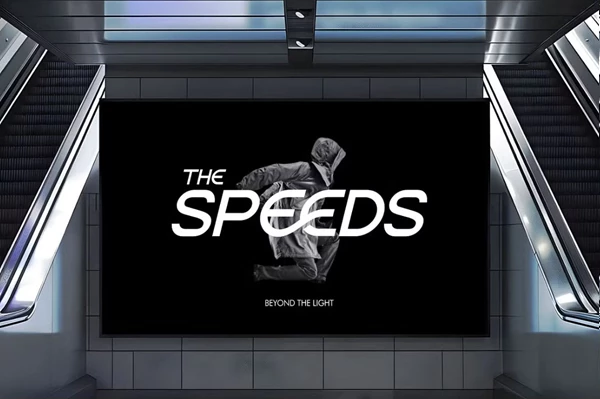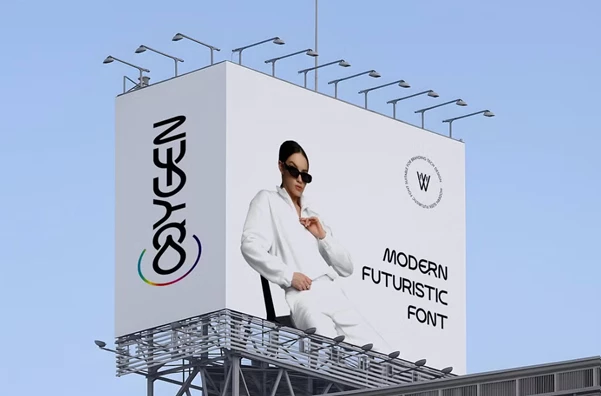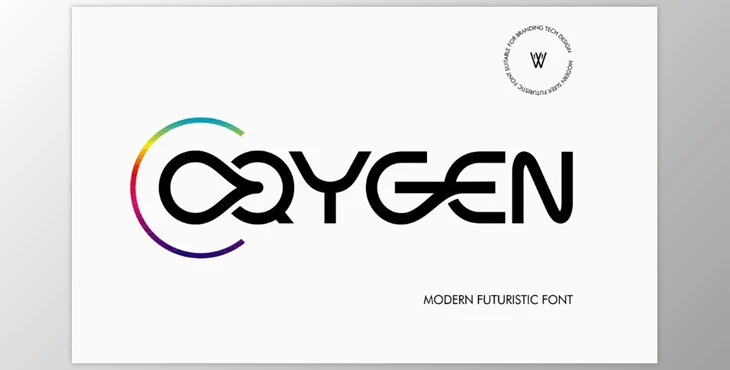
Oqygen - Futuristic Font Logo Brand:
The Oxygen font pairs well with this design thanks to its bold yet airy sans-serif profile. Crafted with geometric curves and straight cuts, each character reads smoothly whether displayed on a business card or blown up on a banner. Tech brands, app makers, and AI startups looking to sound cutting-edge will find the typeface heightens that tone instantly. Plus, its subtle wink to the Y2K vibe gives any screen a fresh hint of retro futurism, making it ideal for a playful, modern identity.
Some great features of Oqygen - Futuristic Font Logo Brand:
- Modern & Futuristic: Blends clean sans-serifs with sharp geometric angles for a look that feels both forward-thinking and spare.
- Bold & Eye-catching: The heavyweight makes words pop, giving headlines and logos a commanding presence at any size.
- Geometric & Structured: Letters are built on pure shapes-circle, square, triangle-communicating precision and engineering cool.
- Compact Design: Slim spacing squeezes more text into tight spots while still looking robust, ideal for small-display posters.
Oxygen sets brands apart on crowded feeds and shop shelves by giving every logo the polished, aspirational glow of tomorrow. Its versatility travels across media-website hero shots, app screens, social posts, pitch decks, even teaser trailers-and always keeps the same confident voice. The font scales neatly, carrying weight on micro-smartwatch displays yet holding its character on giant digital billboards, a nod to the Y2K Revival flow spilling into 2025. On top of that, installation is fuss-free; just drop the files in and Oxygen is ready to run on the next project.